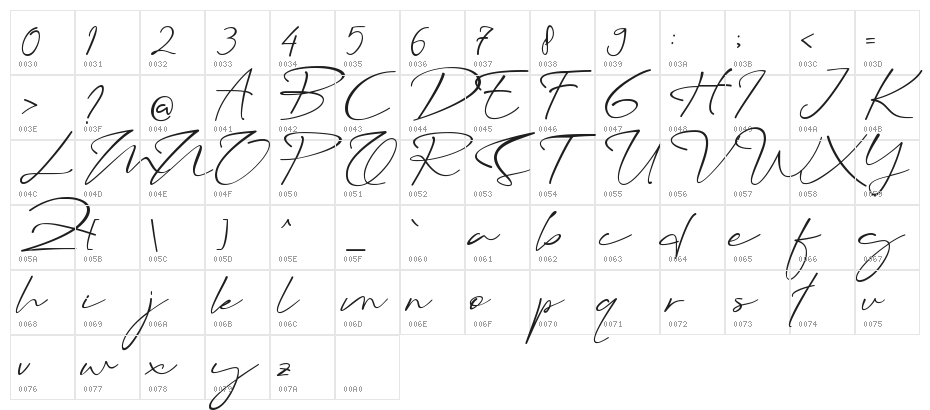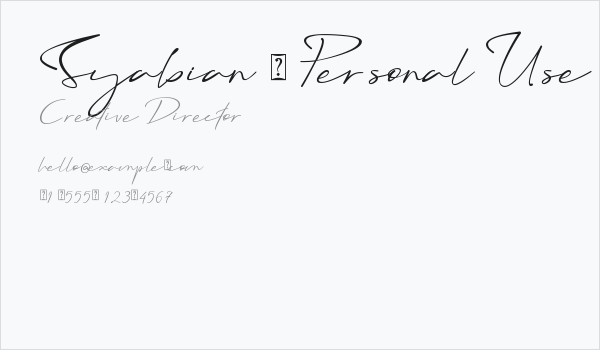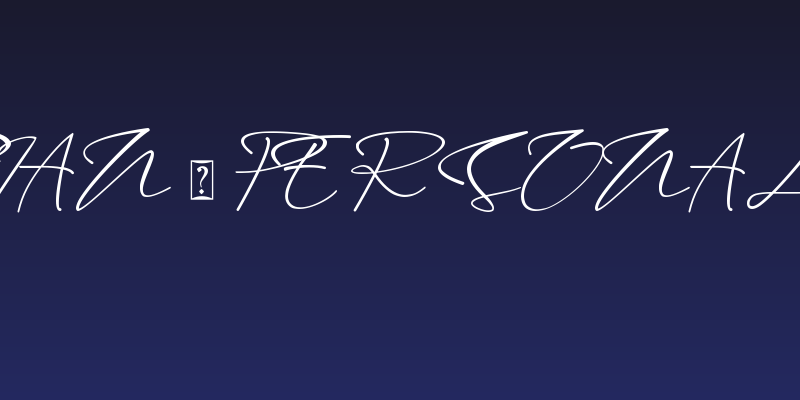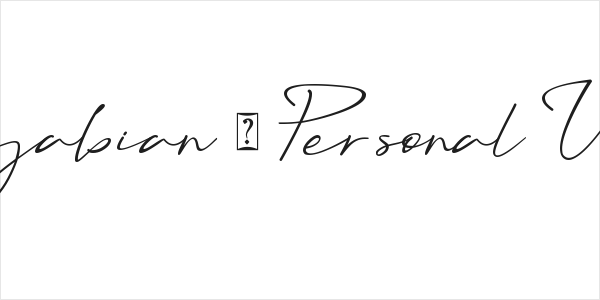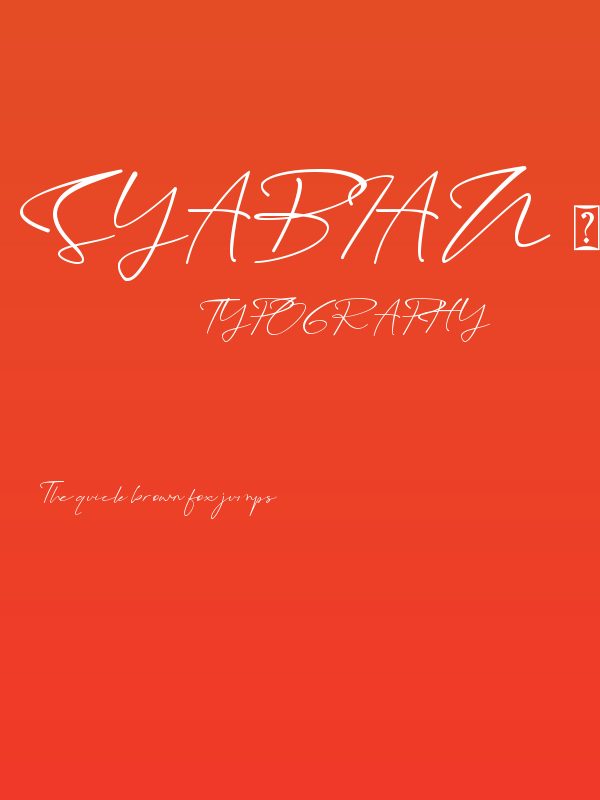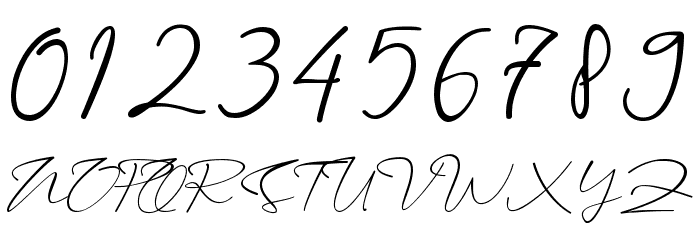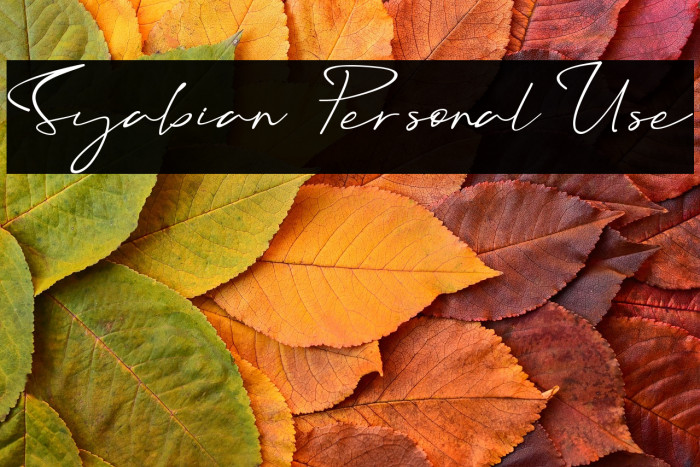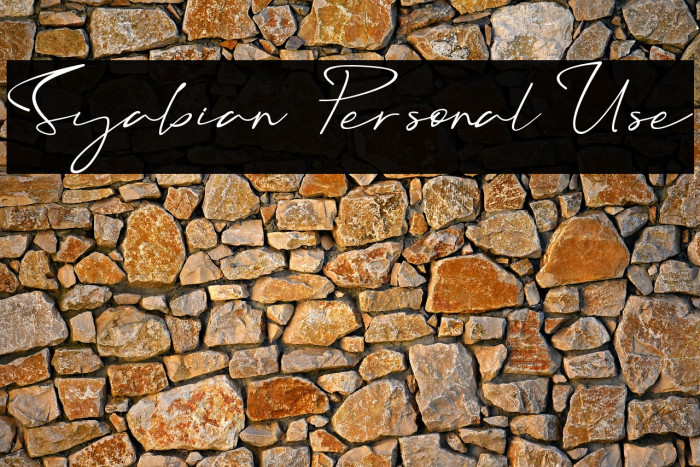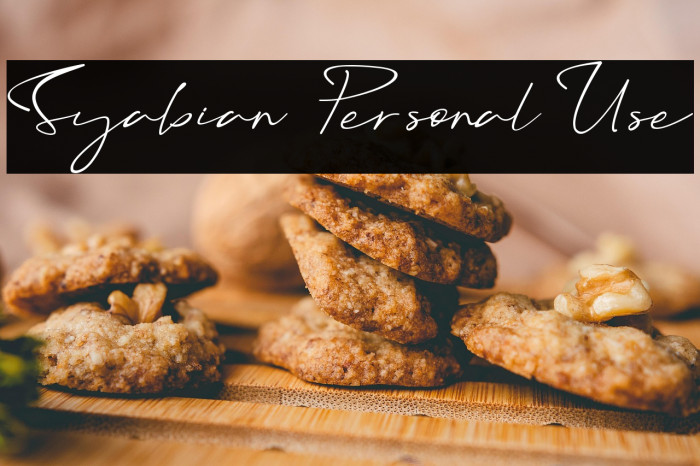
Syabian - Personal Use Font
Syabian - Personal Use Description
This font features an elegant, flowing script style with a handwritten appearance. The characters are connected, giving it a fluid and continuous look, reminiscent of cursive handwriting. The uppercase letters are slightly more elaborate, with sweeping lines and curves, while the lowercase letters maintain a consistent, smooth flow. The numbers are distinct yet harmonize well with the overall script style. Special characters are integrated seamlessly, maintaining the font's cohesive aesthetic. This font exudes a personal and artistic touch, making it suitable for projects that require a sophisticated and personalized feel.
| Overall Style | Elegant, Artistic |